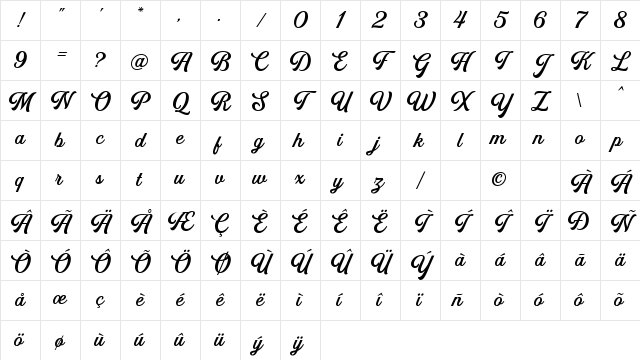
Complete Golden Hills DEMO Regular glyph index. Displaying only characters natively supported by Golden Hills DEMO Regular font.
Golden Hills DEMO is a composed and adaptable typeface that performs quietly and consistently across a wide range of design contexts.